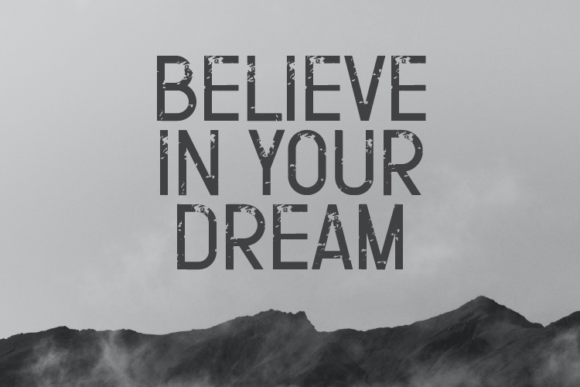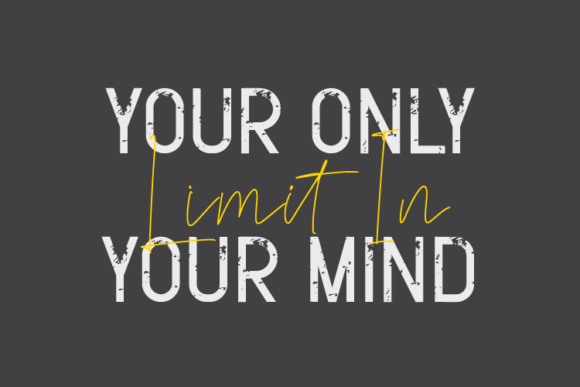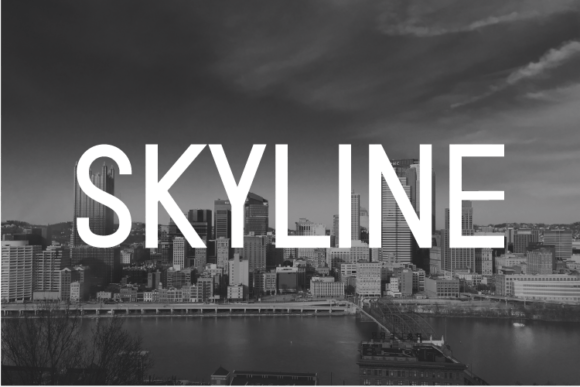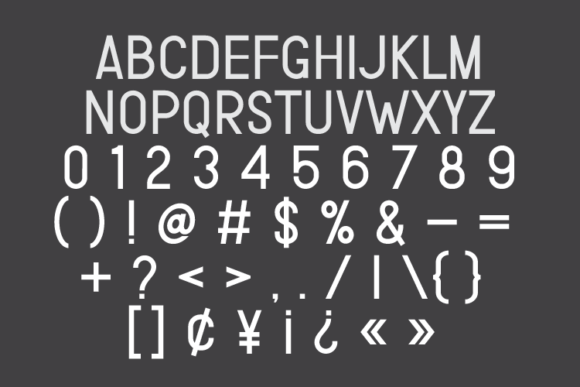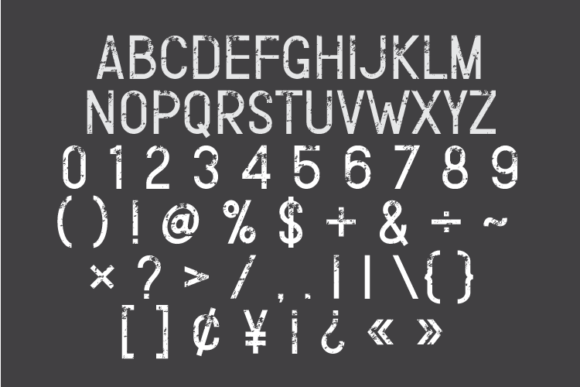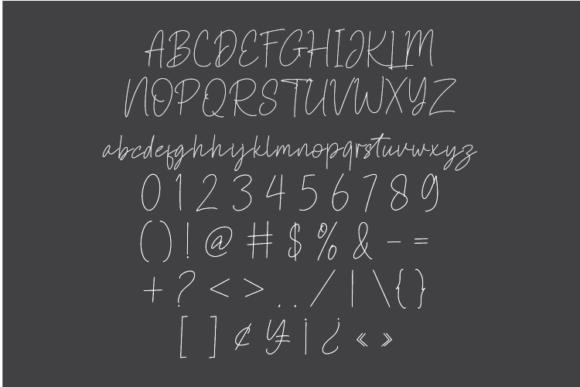
Introduction to Riverna Side Font
Have you ever stared at a blank canvas, feeling like the perfect design is just out of reach? The blank page syndrome is a familiar foe for many designers, but what if you had the right tool to break through the creative block? Enter Riverna Side Font, a stunning duo-style font that adds a touch of sophistication to any project.
This versatile font is a game-changer for designers looking to elevate their creative projects. With its perfect blend of trendiness and elegance, Riverna Side Font is sure to make your designs stand out. Whether you’re working on a free download or a high-quality commercial project, this font is the perfect design resource to take your work to the next level.
Key Features of Riverna Side Font
- Riverna Side Font is a unique, elegant script font featuring a transparent background, ideal for adding a touch of sophistication to your designs
- Includes a range of characters, including uppercase and lowercase letters, numbers, and punctuation marks, making it suitable for various design applications
- Perfect for use in logos, branding materials, invitations, and other creative projects where a touch of elegance is required
- Designed to be highly legible and versatile, making it an excellent choice for designers looking for a unique and high-quality design resource
Honest Review: Riverna Side Font
As a designer, I’m always on the lookout for high-quality design resources to enhance my creative projects. Recently, I stumbled upon the Riverna Side Font, and I’m excited to share my honest review with you.
- ✨ Unique and elegant design style, perfect for adding a touch of sophistication to your designs.
However, I do have to mention a few limitations:
- ⚠️ Limited font styles and weights, which might not be ideal for designers who require a wide range of options.
- ⚠️ Not suitable for use in small text sizes, as the font may become too delicate.
Overall, I’m impressed with the Riverna Side Font. Its elegant design and high-quality vector files make it an excellent addition to any design resource library. While it may have some limitations, I believe it’s a great option for designers who are looking for a unique and sophisticated font to enhance their creative projects.
For the best results, use Riverna Side Font in conjunction with high-quality images and graphics. Experiment with different font sizes, colors, and styles to create a unique look. You can also use Riverna Side Font in combination with other fonts to create a visually appealing design.
Riverna Side Font is perfect for use in various creative projects, including:
- Business presentations and reports
- Photography captions and quotes